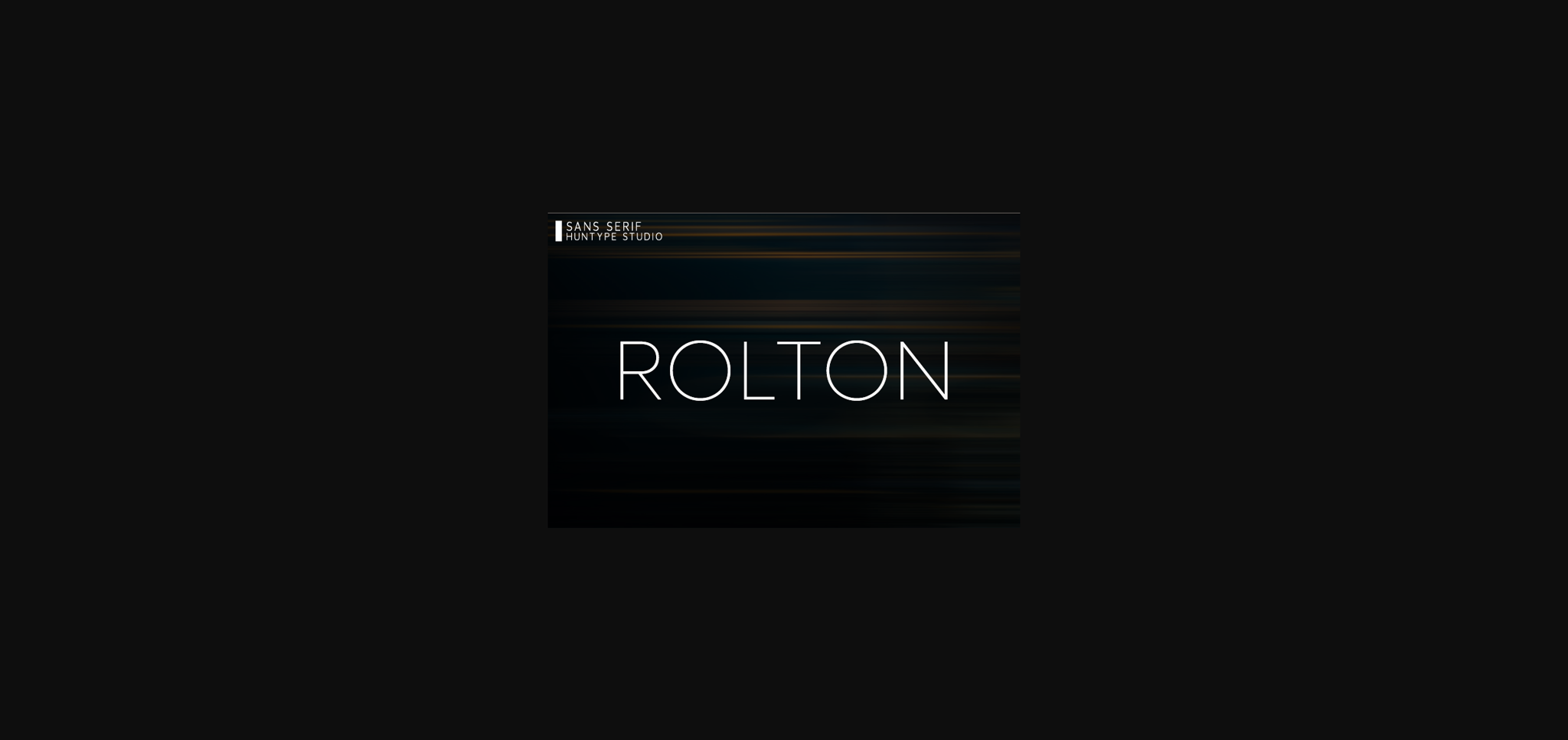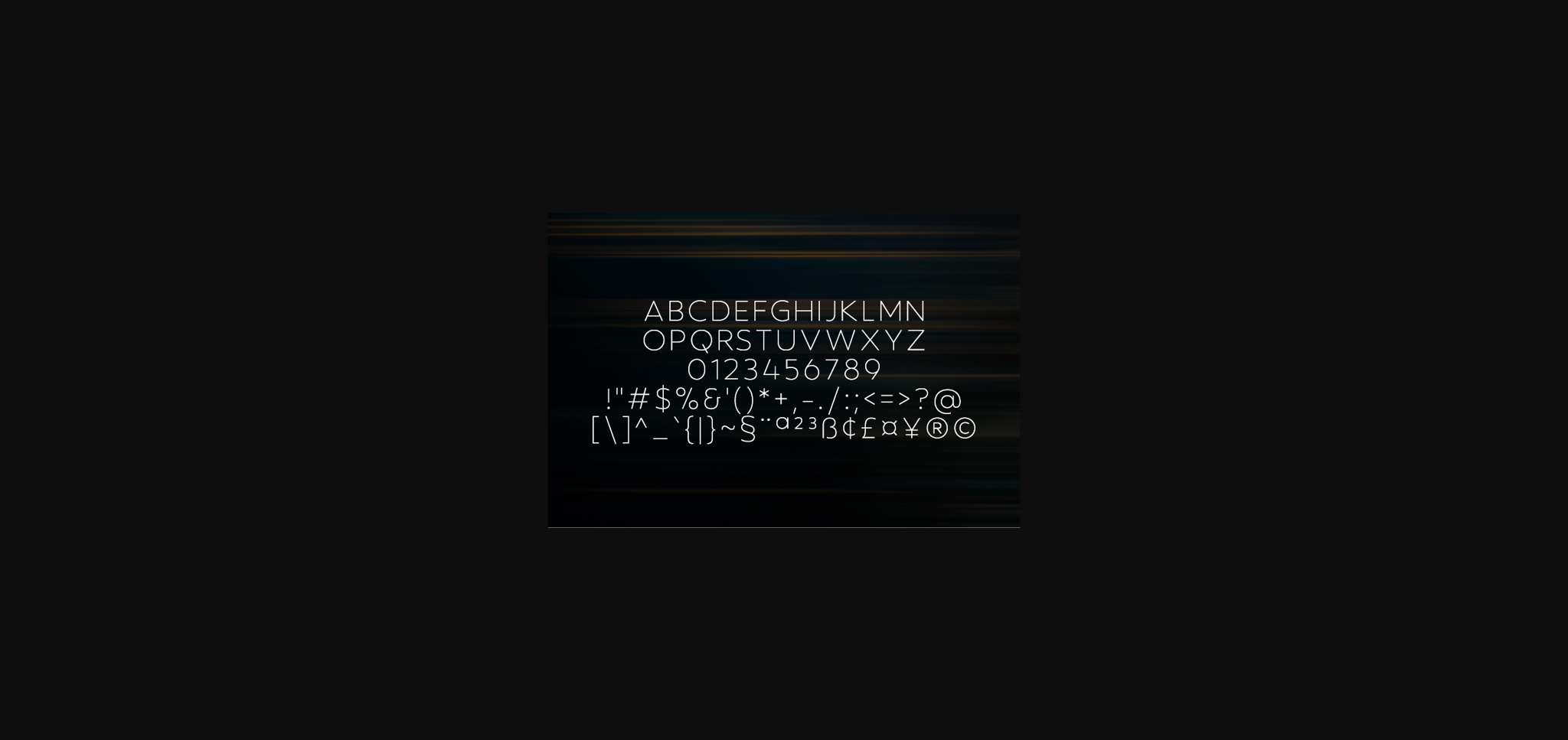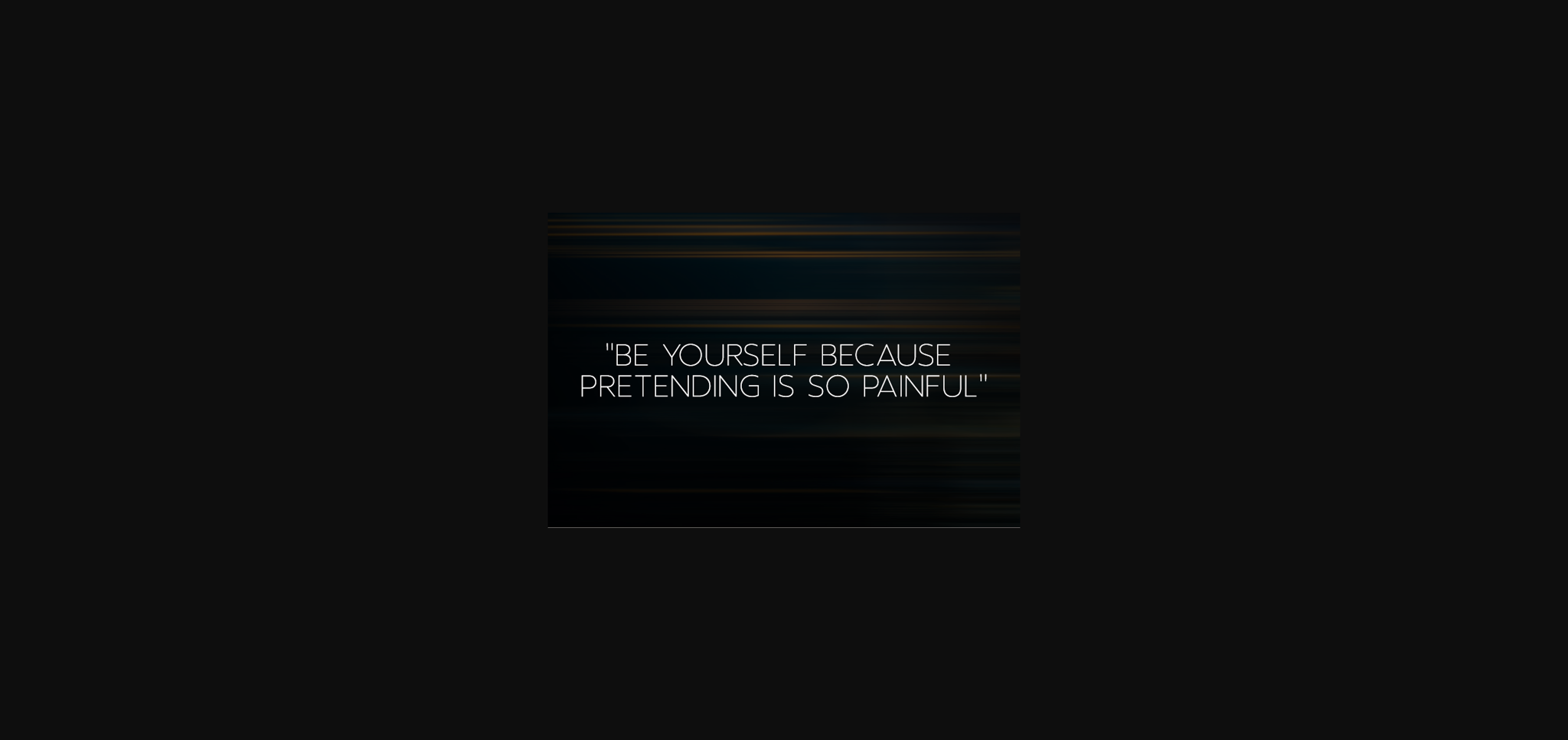
Rolton is a thin and distinct sans serif font. Suitable to a wide variety of designs due to its neat and simple style, Rolton has the potential to become your favorite go-to font, no matter the occasion!